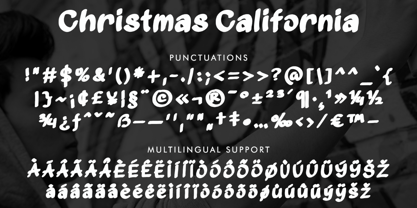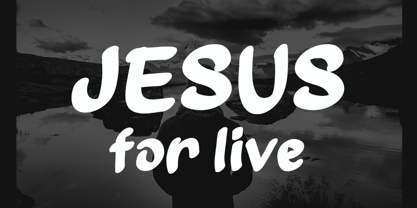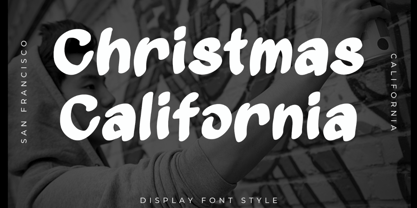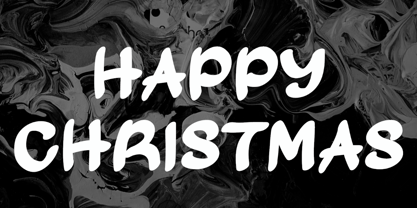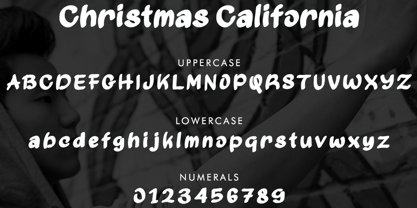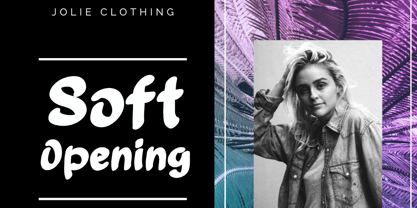
Christmas California
by Yoga Letter
The Christmas California Font Family was designed by Isroni Yoga Prasetya and published by Yoga Letter. Christmas California contains 1 styles. More about this family
"Christmas California" is an elegant display font. It features uppercase and lowercase letters, numbers, punctuation, and multilingual support. Perfect for Christmas, invitations, Thanksgiving, Procreate, summer, spring, logos, tattoos, graffiti, branding, t-shirts, mockups, fall, weddings, photography, gifts, holidays, stickers, birthdays, and more.
Designers: Isroni Yoga Prasetya
Foundry: Yoga Letter